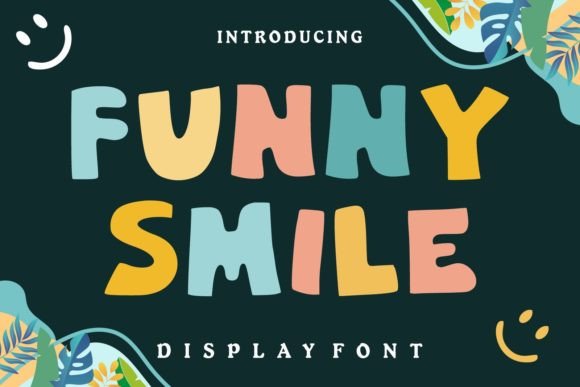
Introducing Funny Smile Font – The Gateway to Childlike Wonder and Whimsical Charm
In the realm of fonts, where creativity dances with expression, there exists a font that captures the essence of unbridled childhood joy and playful imagination – Funny Smile Font. Step into a world where letters become enchanting characters, each stroke brimming with personality and charm. Funny Smile Font, a creation of the talented Riki.studio, isn't just a font; it's an invitation to let your imagination soar and embark on whimsical adventures.
With its informal and casual style, Funny Smile Font possesses an undeniable magnetism that draws you in and transports you to a realm of carefree laughter and innocent delight. Its childlike appeal makes it a perfect choice for visual designs and works that seek to evoke a sense of nostalgia, warmth, and lighthearted fun.
Picture this: vibrant product packaging that comes alive with the playful dance of Funny Smile Font, captivating T-shirts adorned with quirky messages, labels that whisper secrets of joy, posters that burst with infectious laughter, and logos that radiate an aura of pure happiness. The possibilities are endless, bound only by the limits of your imagination.
Funny Smile Font isn't just a font; it's an experience – a journey into the realm of childhood dreams and boundless creativity. Its meticulously crafted characters, each boasting unique quirks and charm, will add a touch of magic to any project, transforming ordinary designs into extraordinary expressions of joy and wonder.
Whether you're a seasoned designer seeking to add a touch of whimsy to your creations or a novice just starting out, Funny Smile Font is your perfect companion. Its versatility and user-friendly nature make it accessible to all, empowering you to create designs that resonate with audiences of all ages.